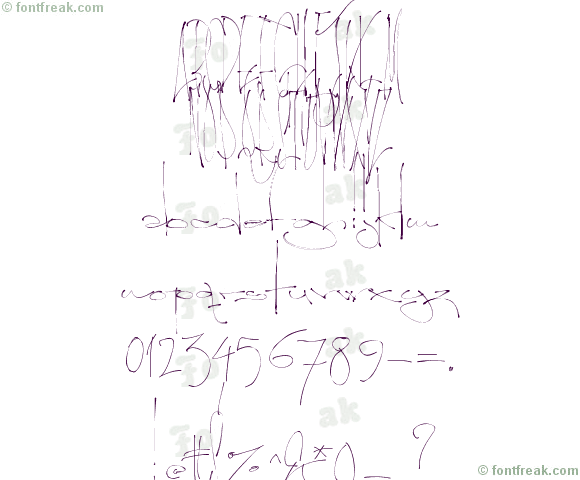
Lyrics Movement
The Lyrics Movement font by Mans Greback is a charming handwritten typeface that embodies a carefree, artistic spirit. This font falls under the category of script fonts, characterized by its fluid lines and whimsical style. The stroke weight varies throughout the characters, lending it a dynamic appearance. With minimal contrast, the letters flow seamlessly into one another, creating an organic feel that enhances its handwritten essence. The spacing between the characters is generous, allowing for clarity while maintaining a casual, approachable aesthetic.
This font is particularly well-suited for a variety of creative applications. It can elevate wedding invitations, adding a personal touch that resonates with romance and elegance. Additionally, it's ideal for movie posters, particularly for indie films or documentaries, where a unique, artistic font can capture attention and reflect the film's tone. Restaurant menus can also benefit from the Lyrics Movement font, providing a warm, inviting atmosphere that complements the dining experience. Content creators and social media influencers will find this font perfect for crafting engaging posts or quotes, as it stands out without overwhelming the viewer.
Targeted towards graphic designers, small business owners, and content creators, the Lyrics Movement font offers versatility and character. Its handwritten nature appeals to those looking to infuse personality into their projects, making it an attractive choice for various creative endeavors.
What sets the Lyrics Movement font apart is its ability to convey emotion and movement through its design. The fluidity of the letters evokes a sense of spontaneity and creativity, making it an excellent choice for anyone seeking to add a distinctive flair to their work. For those interested in this unique style, a Lyrics Movement font free download is readily available, inviting users to explore its artistic potential.